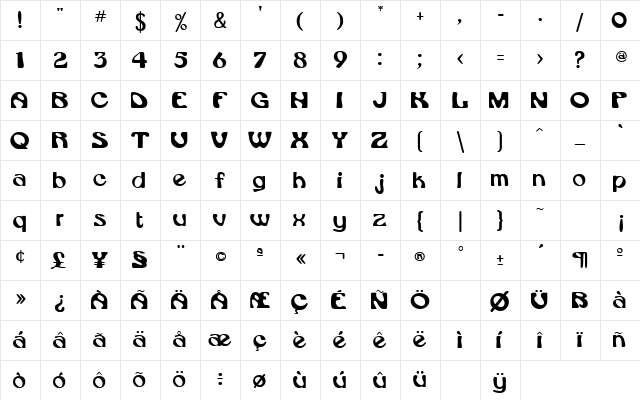
Daytona Regular Free Font
Daytona Regular
Complete Daytona Regular glyph index. Displaying only characters natively supported by Daytona Regular font.
Design Context for Daytona
Daytona is a composed and adaptable typeface that performs quietly and consistently across a wide range of design contexts.